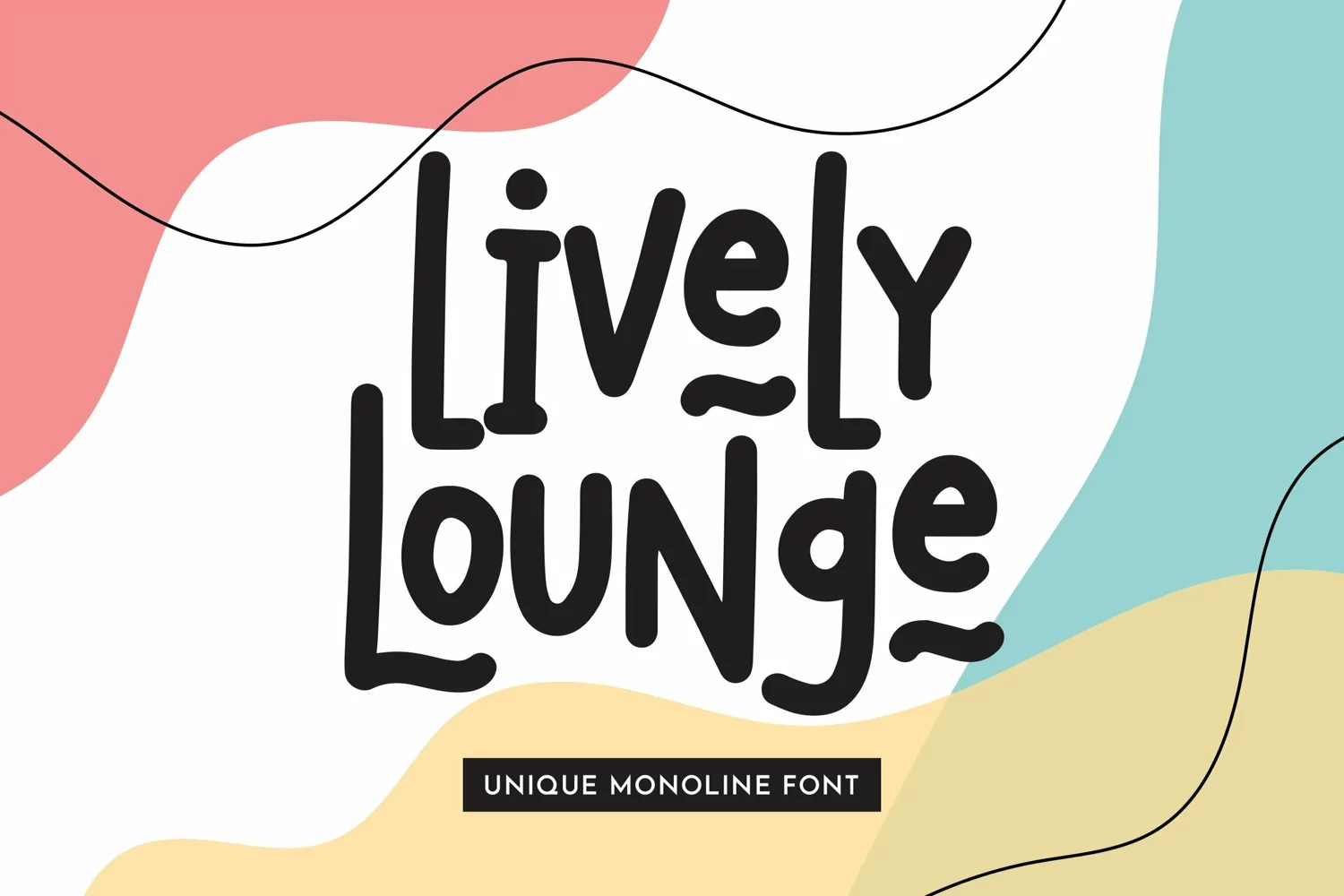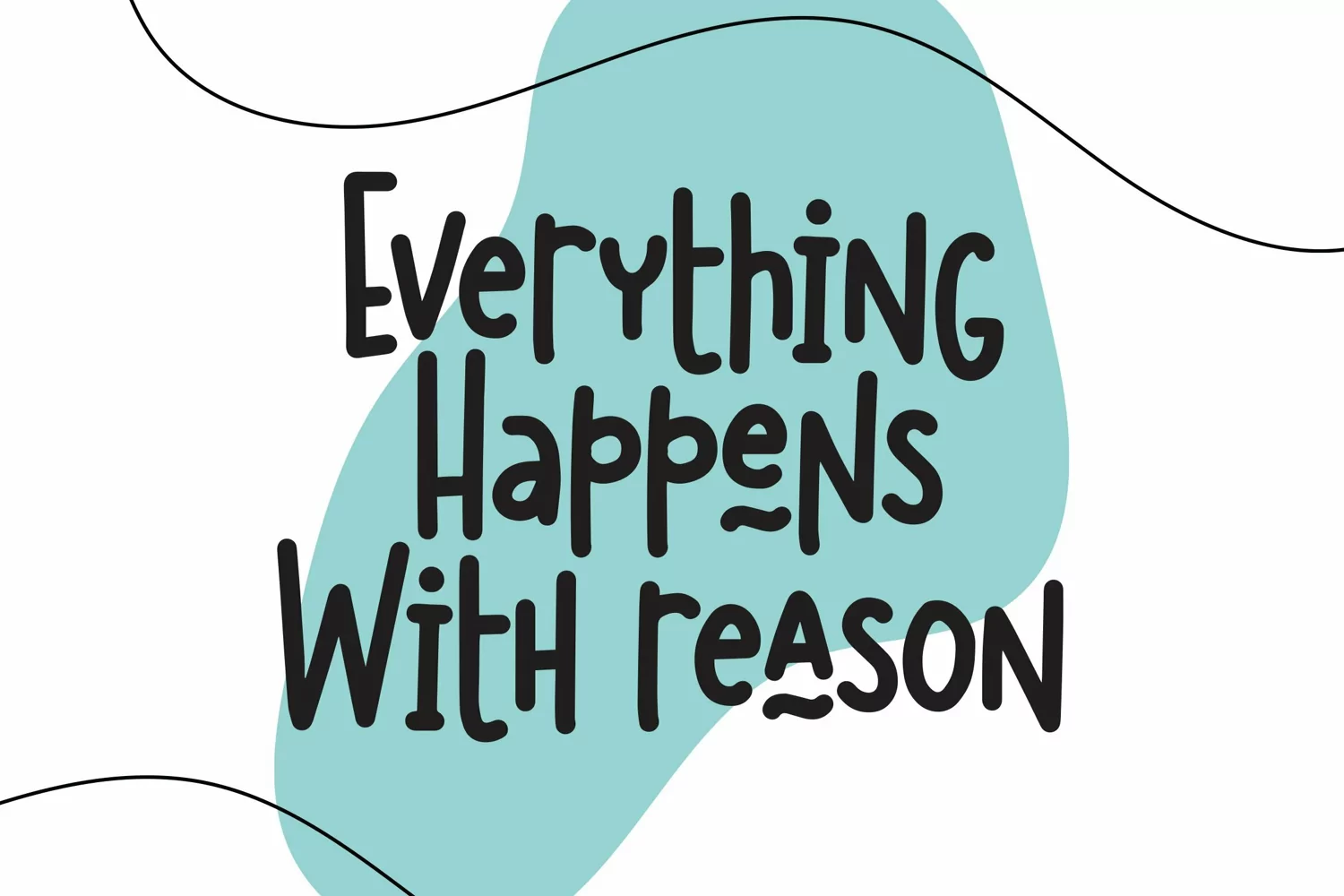
Web Font Lively Lounge - Unique Monoline Font
Web Font Lively Lounge - Unique Monoline Font that contain lowercase, uppercase, symbol, and also support multi language. There’s a lot ligatures in this font. This Font also comes with ligatures, alternates and many more. this font suitable for fashion, branding, catalog and other design what you want.